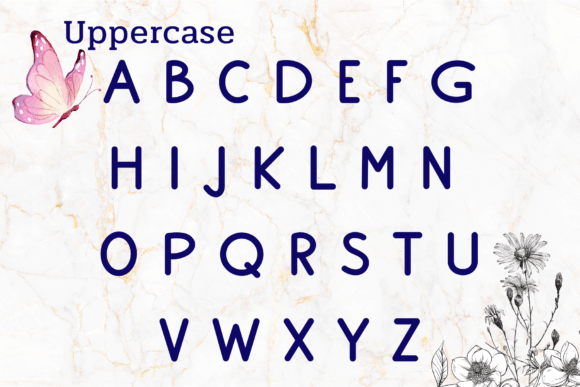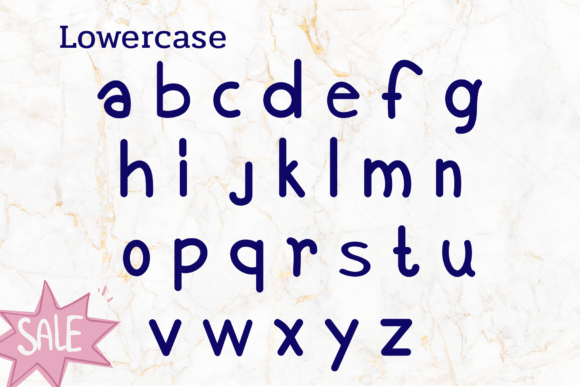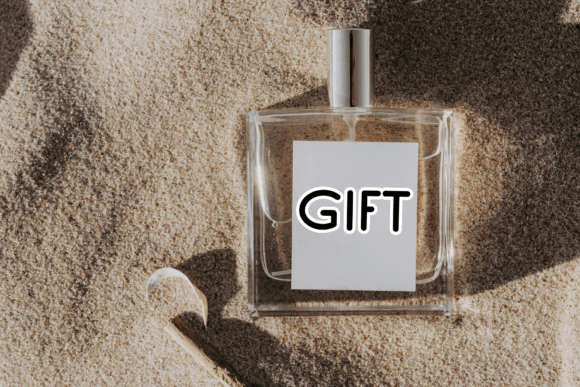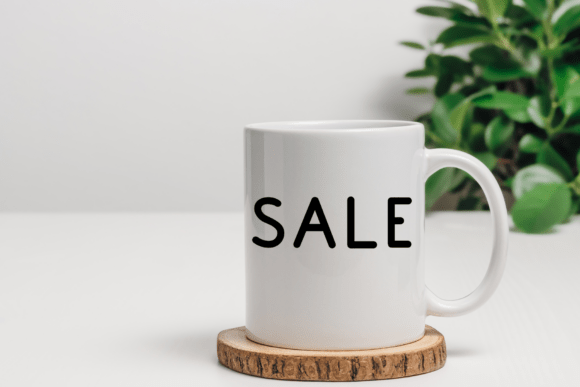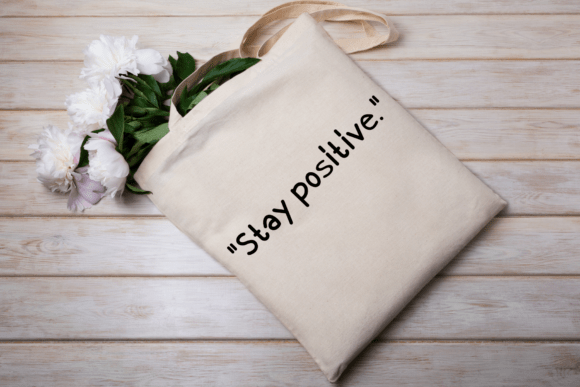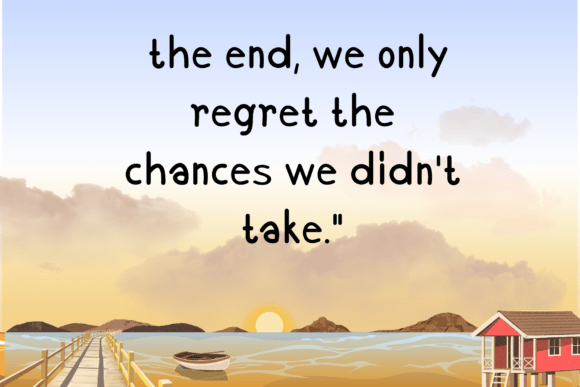
Introducing Customers Day Font: A Charming Handwritten Style for Creative Projects
Are you a designer, crafter, or DIY enthusiast looking for a unique and versatile font to elevate your creative projects? Look no further than Customers Day Font, a beautiful handwritten font that’s perfect for a wide range of applications. In this article, we’ll explore the features and benefits of Customers Day Font, and show you how to make the most of this amazing resource.
What is Customers Day Font?
Customers Day Font is a carefully crafted handwritten font that’s designed to bring a personal touch to your projects. With its smooth, flowing lines and charming character, this font is perfect for creating a warm and inviting atmosphere in your designs. Whether you’re looking to add a personal touch to your notes, create a beautiful diary, or craft a stunning greeting card, Customers Day Font is the perfect choice.
What Can I Use Customers Day Font For?
One of the best things about Customers Day Font is its incredible versatility. While it’s perfect for taking notes, writing a diary, or making greeting cards, you can also use it for a wide range of other design projects, including:
- Banners: Create eye-catching banners with a personal touch using Customers Day Font.
- Content: Add a touch of elegance to your blog posts, articles, and website content with this beautiful font.
- Mugs: Design stunning mugs with a personal message or quote using Customers Day Font.
- Cards: Create beautiful greeting cards for special occasions, such as birthdays, weddings, and holidays.
- Shirts: Design custom t-shirts with a unique and stylish font that’s sure to turn heads.
- Stationery: Add a touch of personality to your stationery, including notebooks, journals, and planners.
- Social Media Posts: Elevate your social media posts with a beautiful and eye-catching font that’s sure to grab attention.
Why Choose Customers Day Font?
So why choose Customers Day Font over other fonts? Here are just a few reasons why this font stands out:
- Unique and Handwritten**: Customers Day Font is a carefully crafted handwritten font that’s unlike anything you’ve seen before.
- Versatile**: This font is perfect for a wide range of design projects, from notes and diaries to banners and social media posts.
- Easy to Read**: Despite its unique and handwritten style, Customers Day Font is incredibly easy to read, making it perfect for long-form content.
- Customizable**: With Customers Day Font, you can easily customize your designs to fit your personal style and branding.
Tips for Using Customers Day Font
Here are a few tips for getting the most out of Customers Day Font:
- Experiment with Colors**: Try pairing Customers Day Font with different colors and textures to create a unique and eye-catching design.
- Play with Size**: Experiment with different font sizes to create visual interest and hierarchy in your designs.
- Add Graphics**: Consider adding graphics or illustrations to your designs to create a more visually appealing effect.
- Keep it Simple**: Don’t be afraid to keep things simple and elegant – Customers Day Font is perfect for minimalist designs.
Customers Day Font is a beautiful and versatile handwritten font that’s perfect for designers, crafters, and DIY enthusiasts. With its smooth lines, charming character, and incredible versatility, this font is sure to elevate your creative projects and add a personal touch to your designs. Whether you’re looking to create a stunning greeting card, a beautiful diary, or a unique design project, Customers Day Font is the perfect choice. So why wait? Download Customers Day Font today and start creating something amazing!